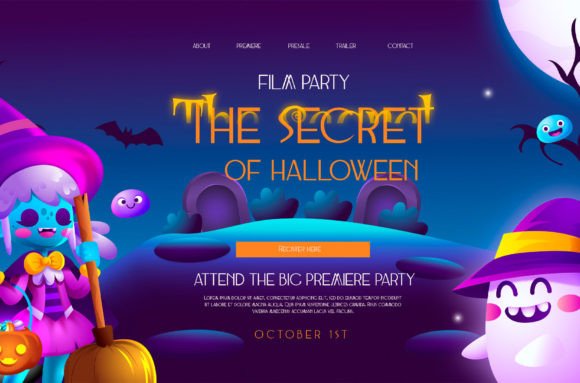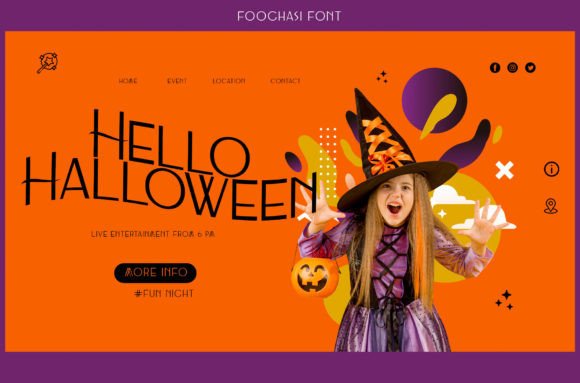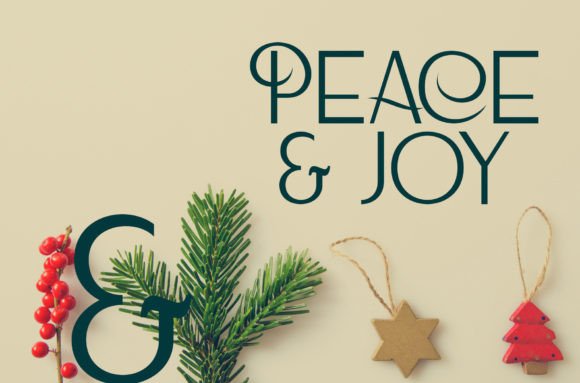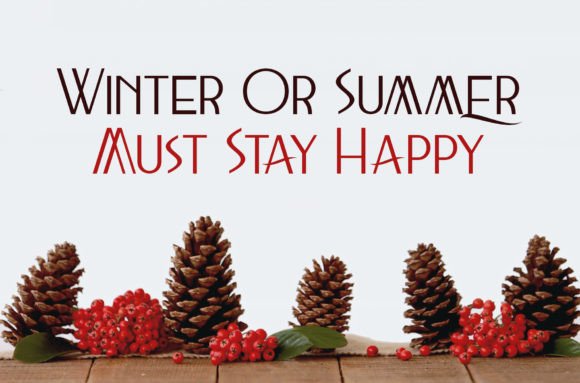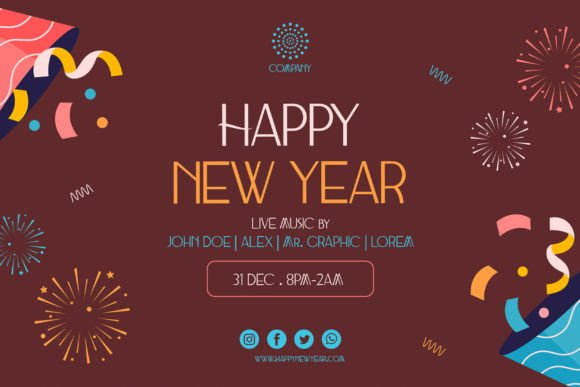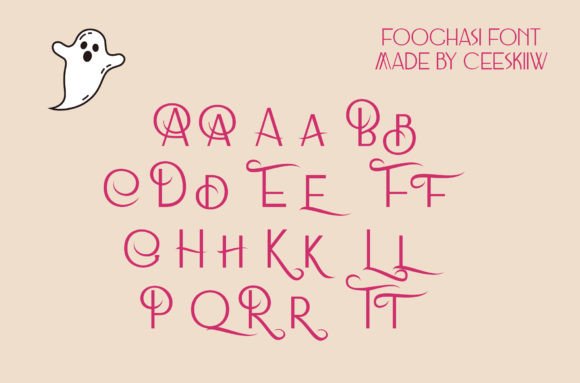
Discover the Magic of Fooghasi Font
Have you ever stared at a blank page, trying to bring your creative vision to life, only to feel stuck and uninspired? We’ve all been there. But what if we told you that the perfect spark could be just a font away? Introducing Fooghasi Font, a stylish and elegant sans serif font that’s sure to add a touch of magic to any design you create.
With its uniquely shaped characters, Fooghasi Font is perfect for adding a festive touch to invitations, greeting cards, or even a special logo. Whether you’re a seasoned designer or a hobbyist looking to express yourself, this versatile font is a valuable addition to any creative toolkit.
Fooghasi Font Key Features
- Unique Characteristics: The font features a unique blend of modern and vintage elements, with distinctive letterforms and ornaments that add a touch of elegance and sophistication.
Designer Review: Fooghasi Font
First off, I have to say that I was a bit skeptical about trying the Fooghasi Font. But after digging in, I was pleasantly surprised by its unique charm. ✨ The font’s eclectic mix of script and sans-serif elements gives it a quirky, hand-drawn feel that’s hard to find in other fonts. I appreciate how it can add a touch of personality to any design project.
One of the standout features of Fooghasi is its versatility. ✨ It comes in a range of weights, from light to bold, making it suitable for everything from title text to body copy. The font also includes a variety of ligatures, which can help to create a more polished look.
- ⚠️ Limited language support: While Fooghasi does support a range of languages, it’s not as comprehensive as some other fonts on the market.
- ⚠️ Not ideal for small text: Due to its quirky design, Fooghasi can be difficult to read at very small sizes. It’s best used for larger text or headings.
Overall, I think Fooghasi is a great addition to any designer’s toolkit. While it may have some limitations, its unique charm and versatility make it a great choice for projects that need a bit of personality. Just be sure to use it thoughtfully and within its limitations.
Practical Application Guide for Fooghasi Font
Fooghasi Font is ideal for:
– Creating unique and eye-catching titles and headings
– Adding a touch of elegance to invitations and wedding stationery
– Designing custom logos and branding materials
– Enhancing the visual appeal of digital and print materials